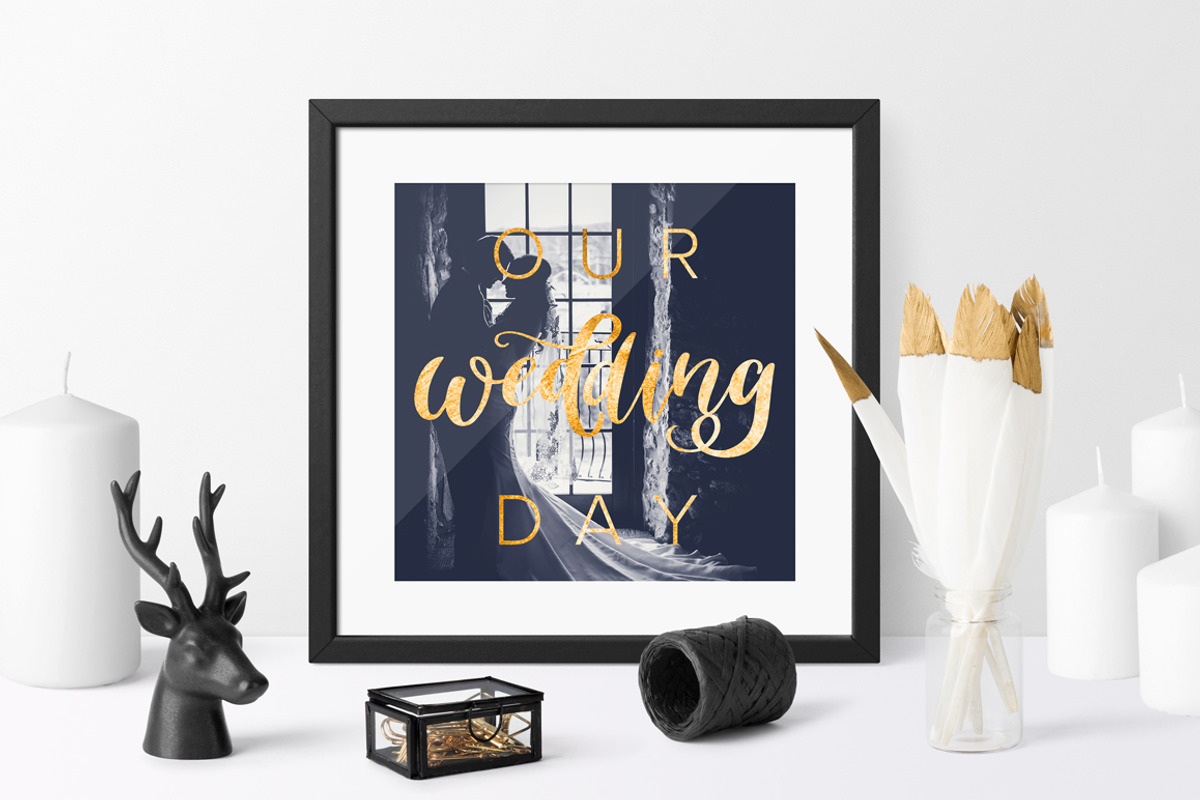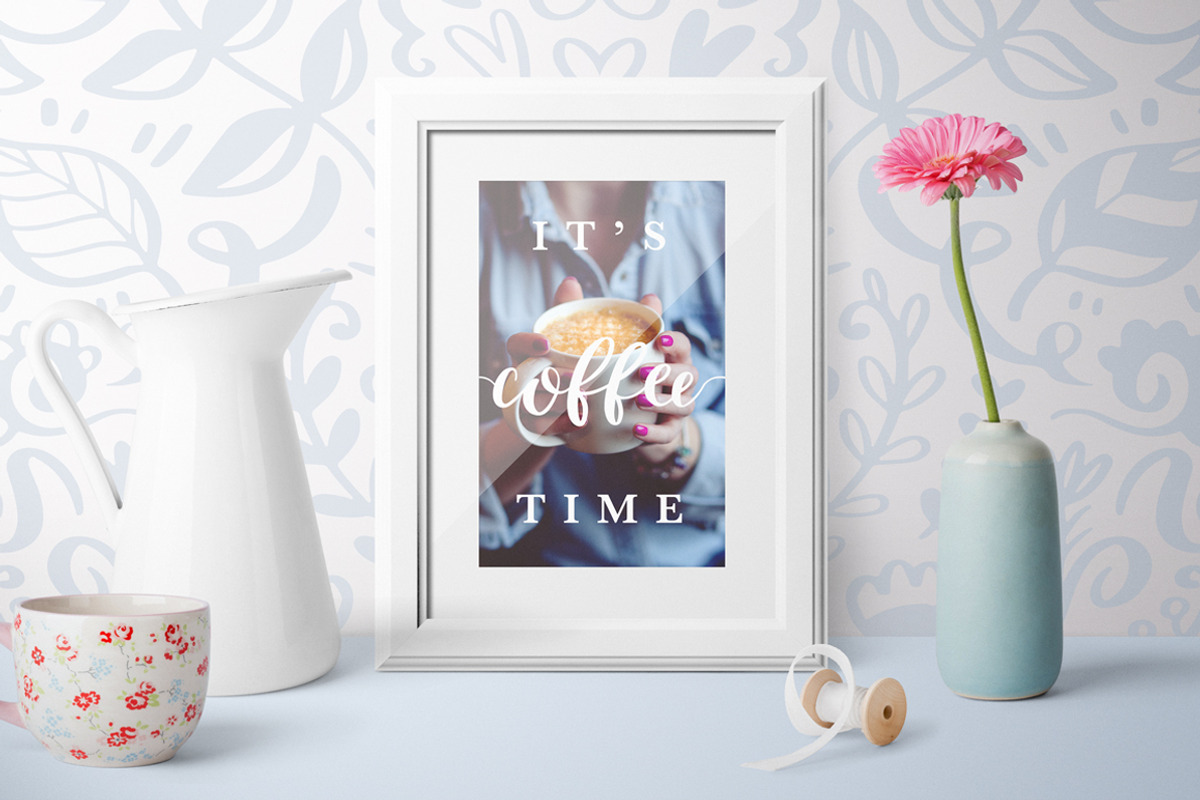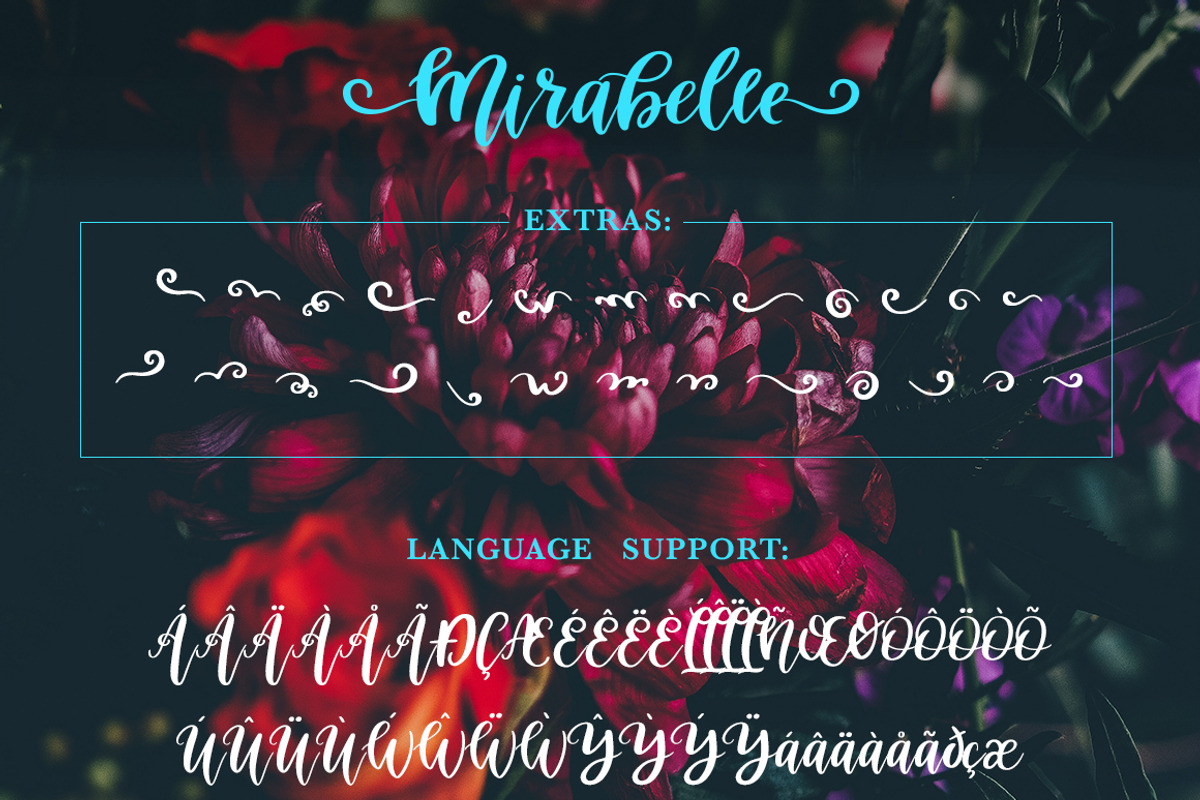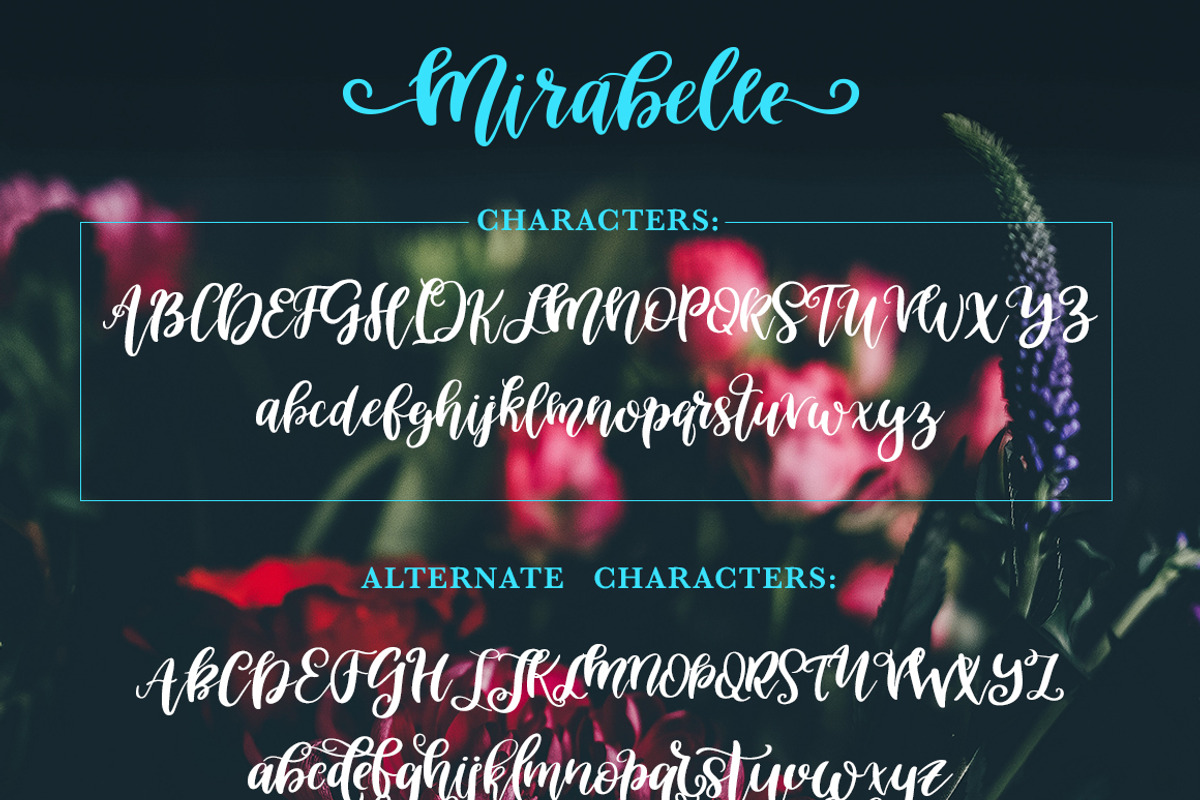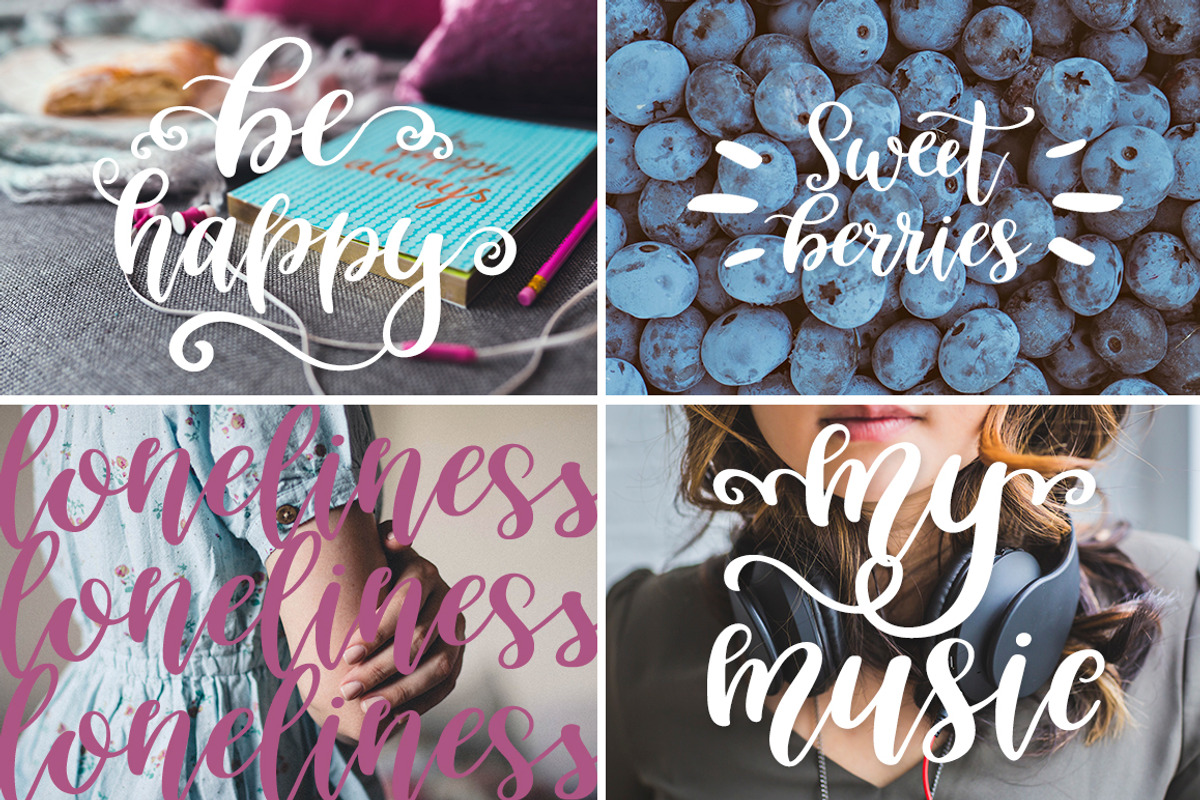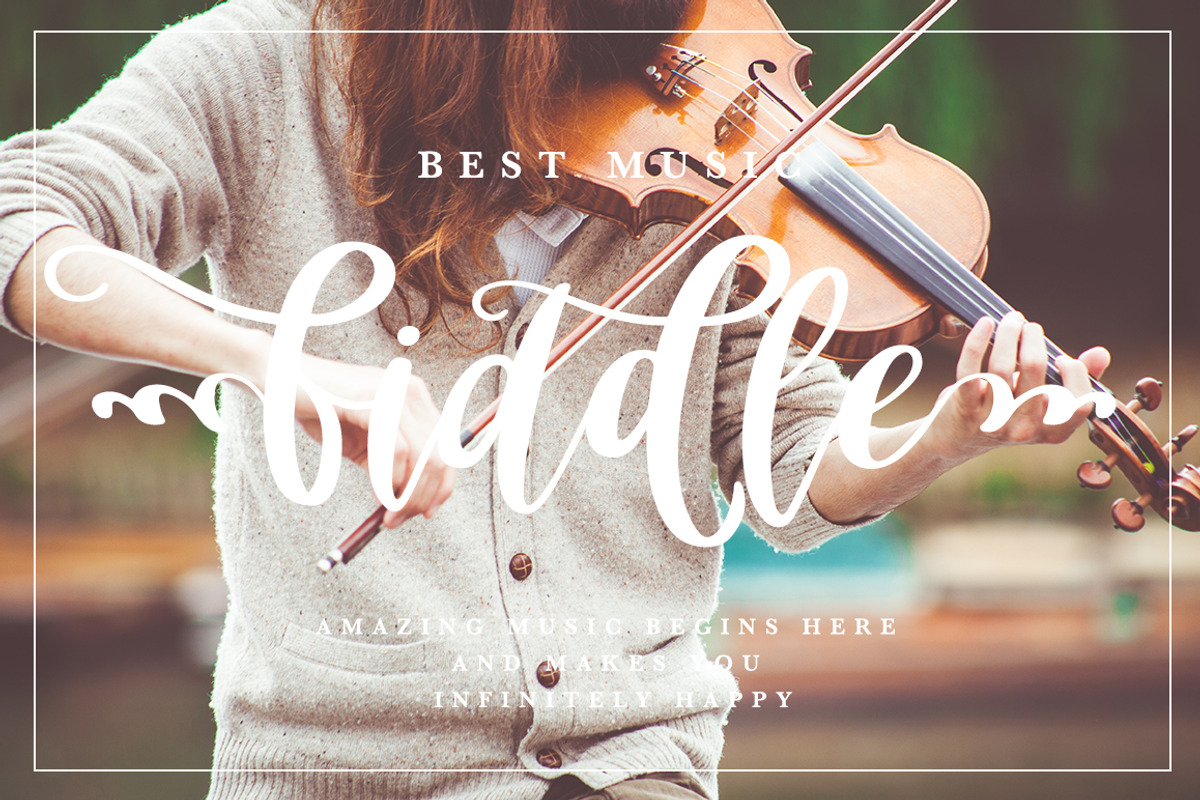
Mirabelle Script - Font with Extras!
♥ Mirabelle Font - handwritten typeface for your projects! Elegant script! ♥
This hand drawn font is perfect for cards, prints, logos, wedding invitations, arrange illustration and decoration.
It has upper and lower case letters, numbers, special characters, accents, alternates and ligatures.